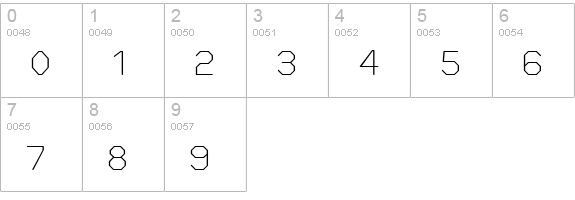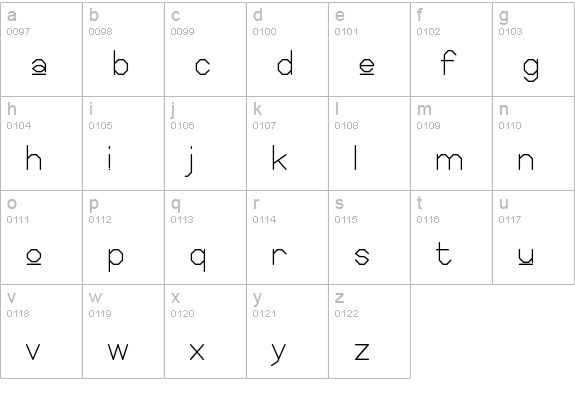
Elgethy Square Upper Font Details
Elgethy Square Upper font is a modern and stylish typeface that exudes a sense of sophistication and elegance. With its clean lines and geometric shapes, this font is perfect for creating eye-catching designs that demand attention. The uppercase characters have a unique square design that adds a touch of boldness to any project. What makes Elgethy Square Upper font even more appealing is that it is available for free download at FontsMarket.com. This means that you can easily access this high-quality font without any cost, making it a valuable addition to your font collection. Whether you're designing a logo, poster, or branding materials, Elgethy Square Upper font is sure to make a statement and elevate your work to the next level.